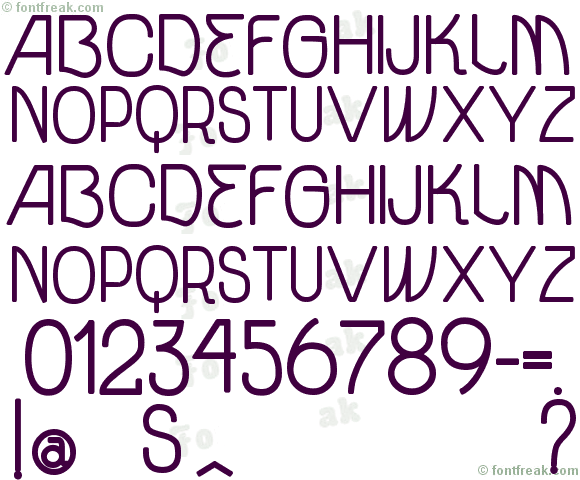
vtks unidade bold
vtks unidade ultra bold
vtks unidade
About vtks unidade bold
The vtks unidade bold font, designed by Douglas Vitkauskas, is a striking sans-serif typeface that embodies modernity and clarity. With its clean lines and geometric shapes, this font captures attention while maintaining readability. The stroke weight is consistent throughout, providing a sense of balance and stability, while the minimal contrast enhances its legibility across various sizes. The character spacing is thoughtfully designed, ensuring that each letter is distinct, making it ideal for both headlines and body text.
This font is perfect for a variety of applications. It shines in branding projects where a contemporary look is essential, making it suitable for logos, business cards, and promotional materials. Additionally, the vtks unidade bold font is an excellent choice for event posters, where boldness and clarity are paramount. Its modern aesthetic also lends itself well to digital content, making it ideal for social media graphics and website headers. Graphic designers will find this font particularly appealing for creating visual identities that stand out in a crowded market.
What sets the vtks unidade bold font apart is its ability to merge contemporary design with practical usability. Whether you are crafting an eye-catching advertisement or designing a sleek website, this font offers a visually appealing option that does not compromise on legibility. Experience the vtks unidade bold font free download and elevate your design projects with a typeface that resonates with modern aesthetics while ensuring clarity and impact.